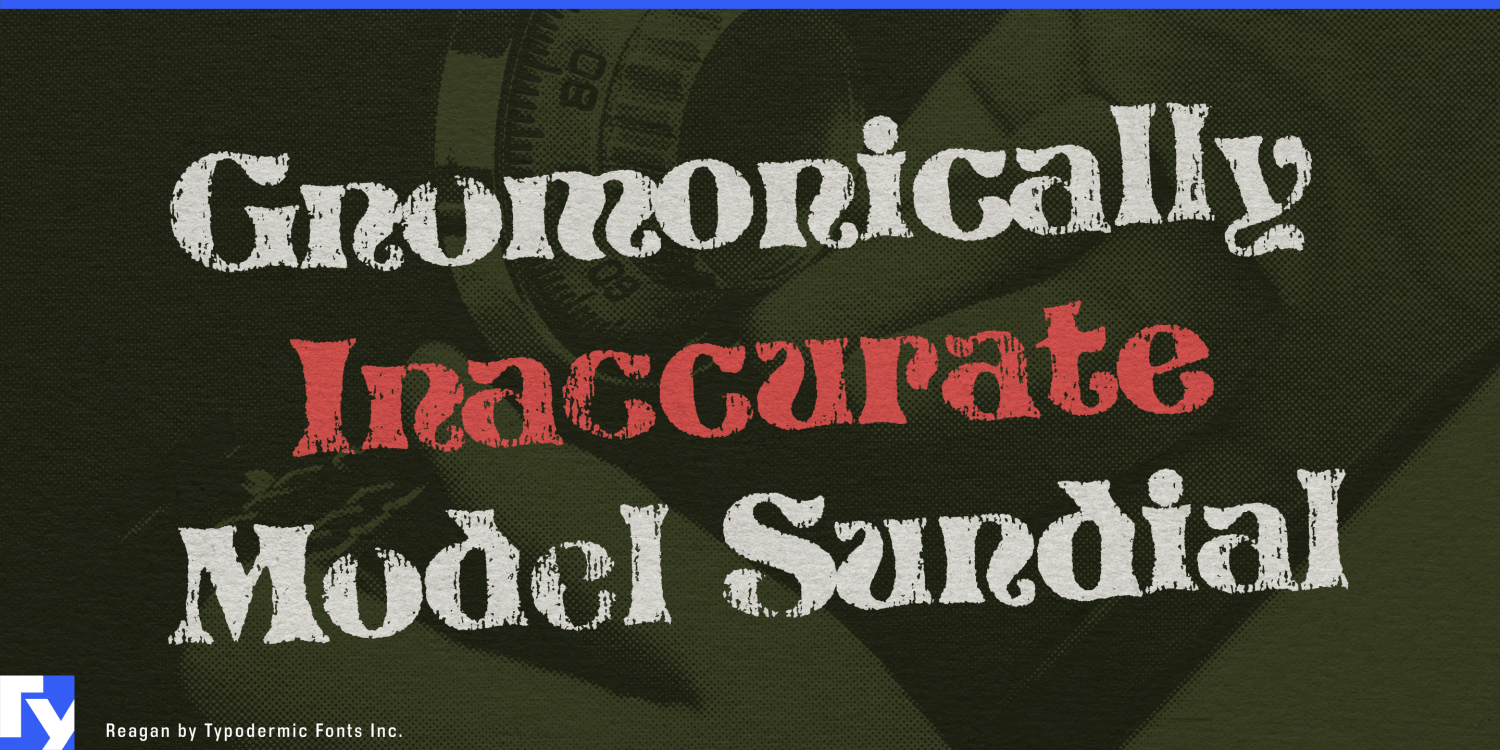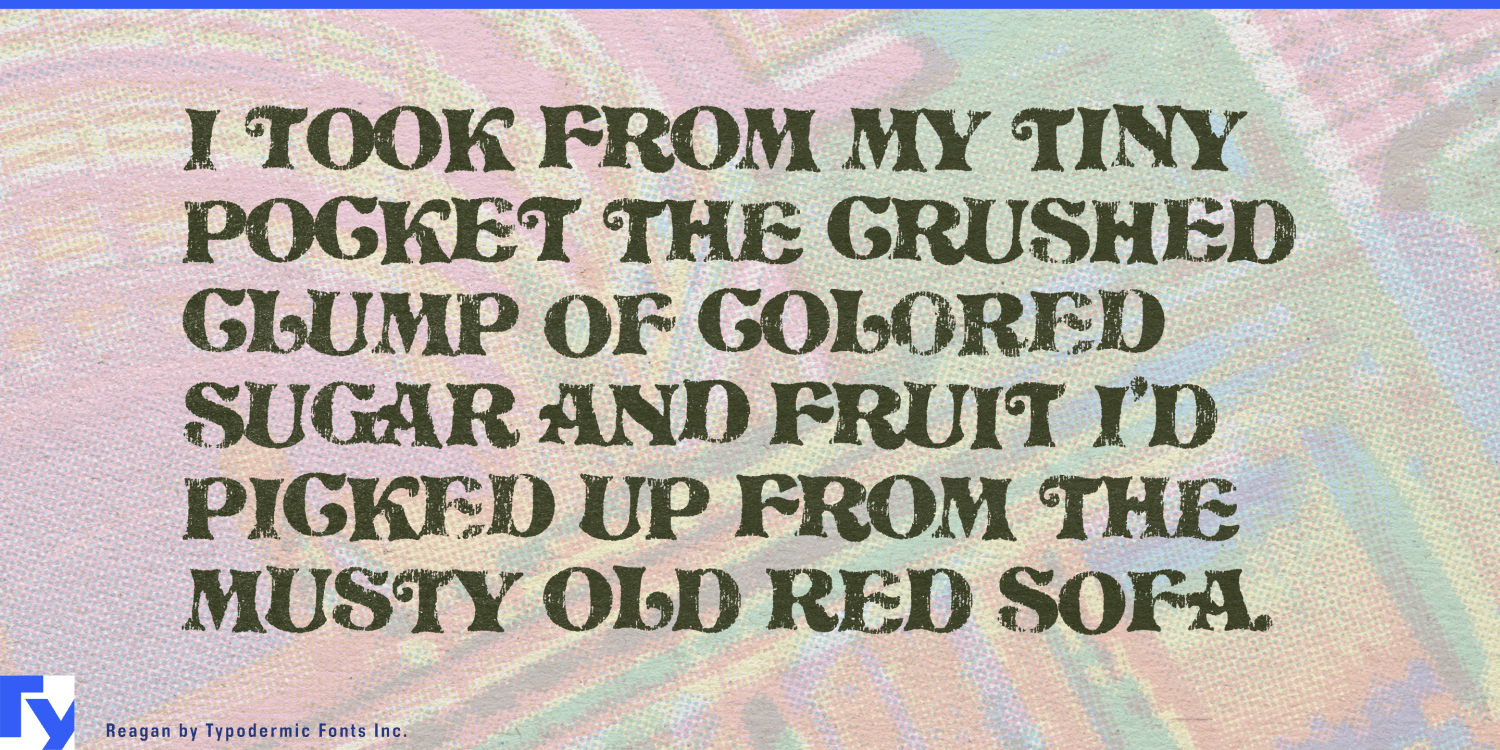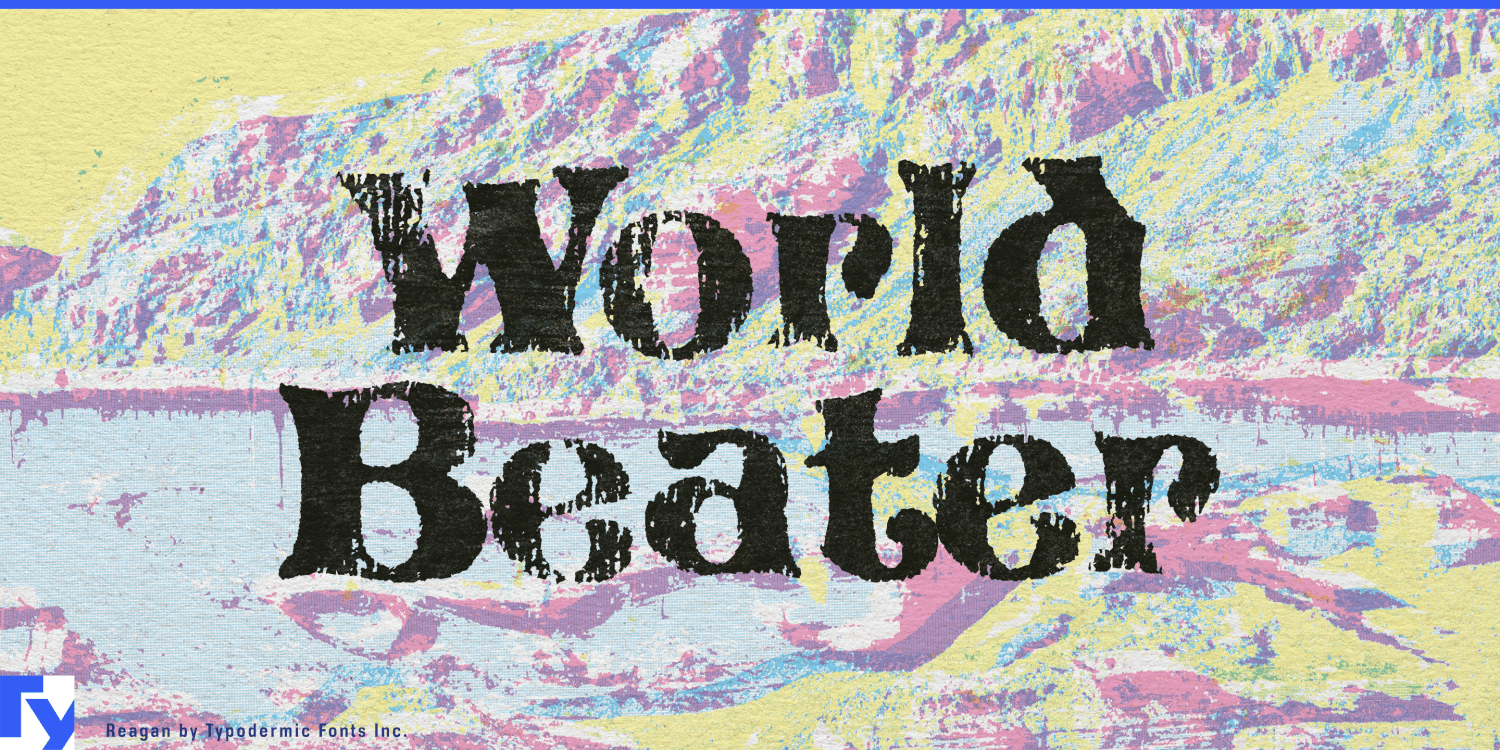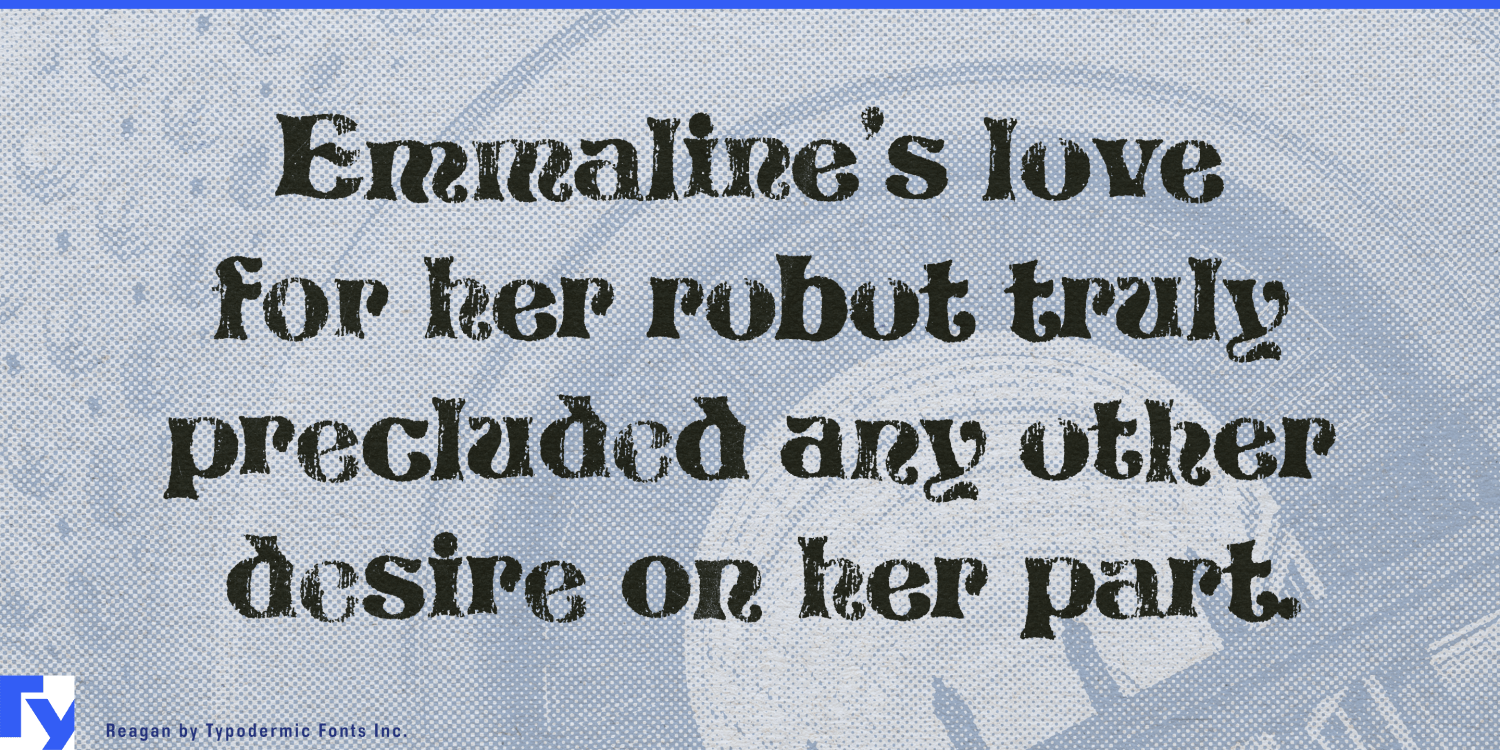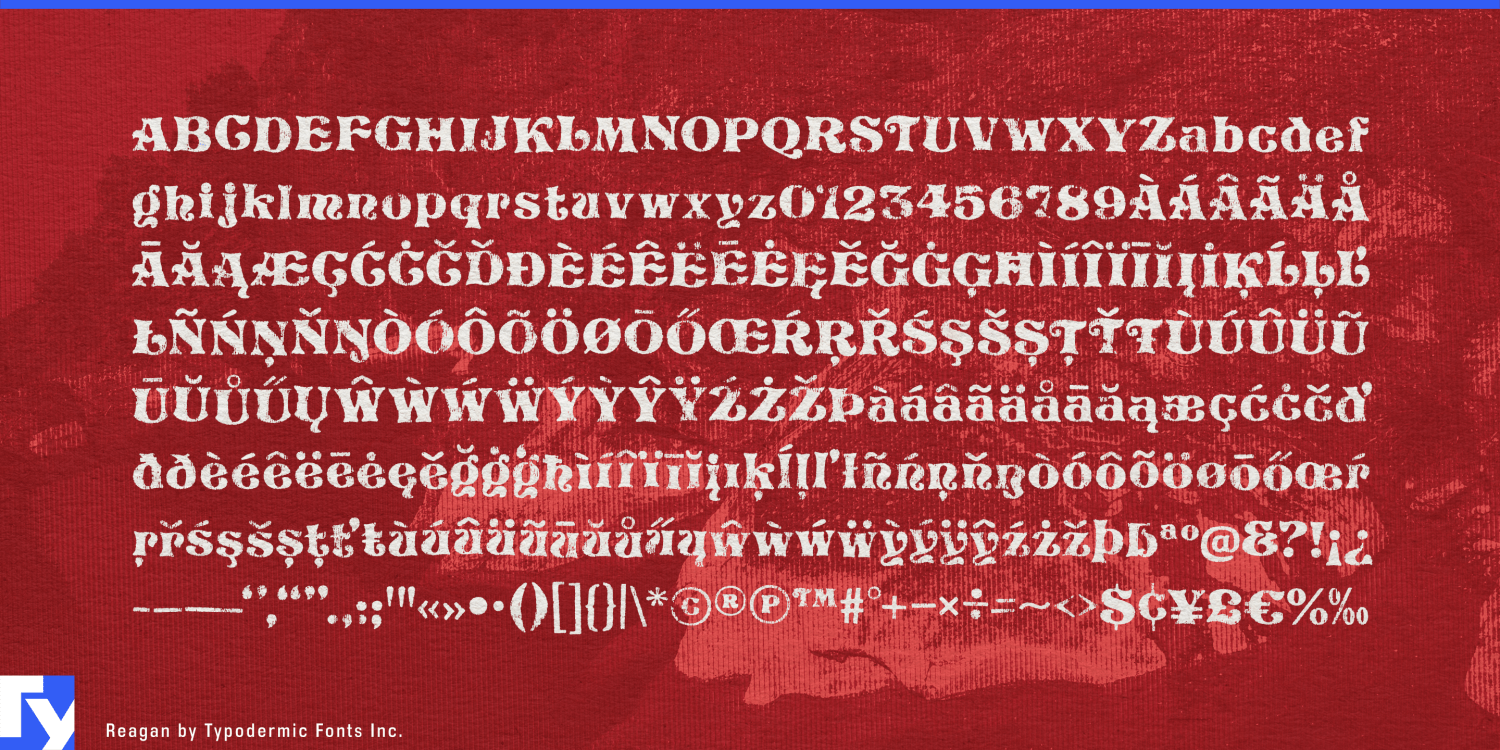
Reagan
Font Family by Typodermic
The 1980s are often remembered through neon grids, chrome lettering, Memphis patterns, and synthetic futurism. Most people actually spent the decade surrounded by something less glamorous: beige carpet, brass trim, woodgrain, rust-and-umber décor, family restaurants, mall shops, bowling alleys, and decorative lettering inherited from the seventies. Reagan comes from that more ordinary visual world.
Its underlying forms are based on Pretorian, a decorative serif once common on restaurant signs, framing shops, menus, and other small-business graphics. Reagan pushes that familiar structure toward another period object: the worn local-business T-shirt.
The texture was developed from acrylic paint applied to jersey fabric, then cracked and flexed to produce the irregular breaks of an aging screen print. The result resembles ink that has spent years stretching across cotton rather than generic digital distress. Ligatures vary recurring combinations, helping the wear avoid obvious mechanical repetition.
That makes Reagan especially convincing for family-restaurant shirts, bowling-league tees, campground souvenirs, county-fair merchandise, softball fundraisers, ski-lodge gift-shop graphics, anniversary shirts, and other artifacts of local history. It also works well for period props: a faded pizzeria staff shirt, motel souvenir, framing-shop logo, garden-center tee, or community-event graphic can establish the everyday late-1970s or 1980s setting without leaning on the usual retro clichés.
Reagan is strongest at display sizes where its decorative construction and cracked texture can both register clearly. It recalls the less fashionable side of the era; local businesses, souvenir shirts, community events, and aging screen prints from a decade that was usually much browner than nostalgia remembers.